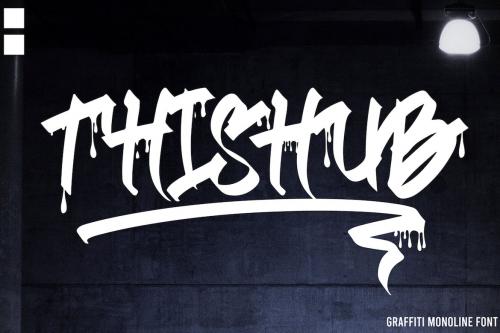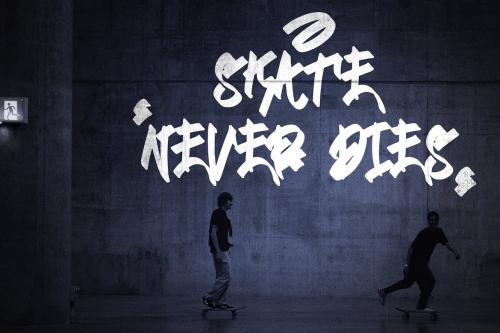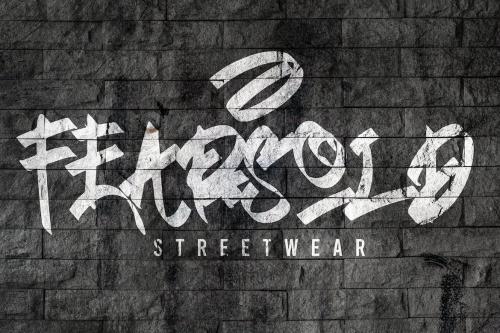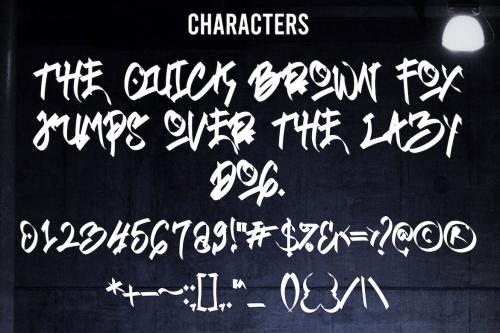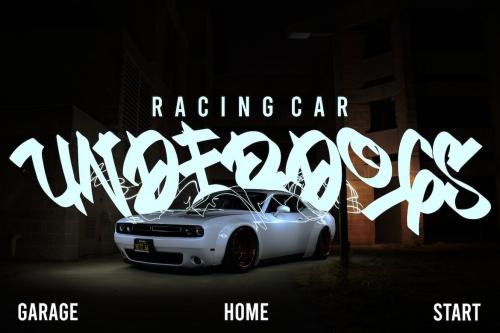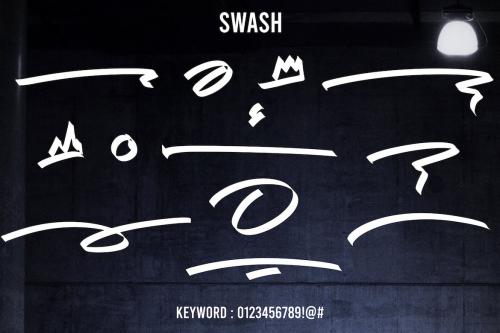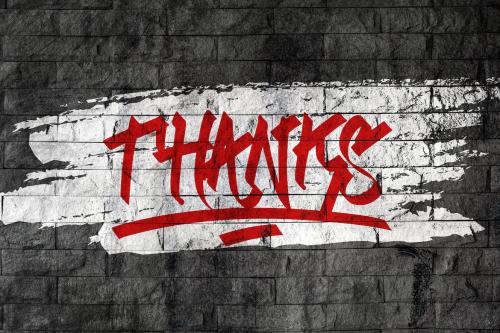
thishub - 单线涂鸦字体
Thishub - Monoline Graffiti Font
Thishub Graffiti is a display font with a monoline graffiti style, there is some swash for your awesome design. It will elevate a wide range of design projects to the highest level, be it branding, headings, wedding designs, invitations, signatures, logos, labels, and much more
Featured :
* Uppercase
* Number and Punctuation
* Stylistic Alternate (Swash)